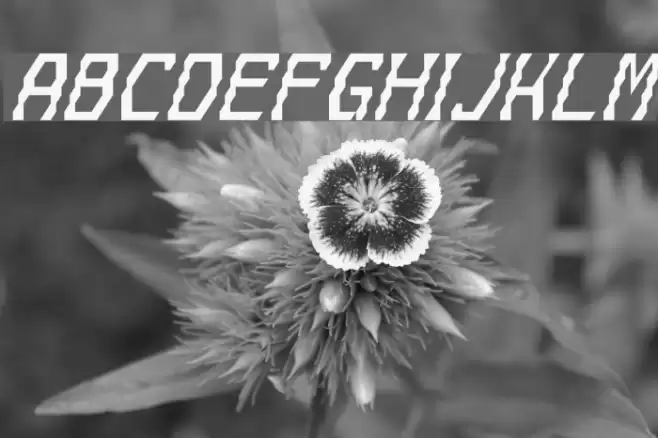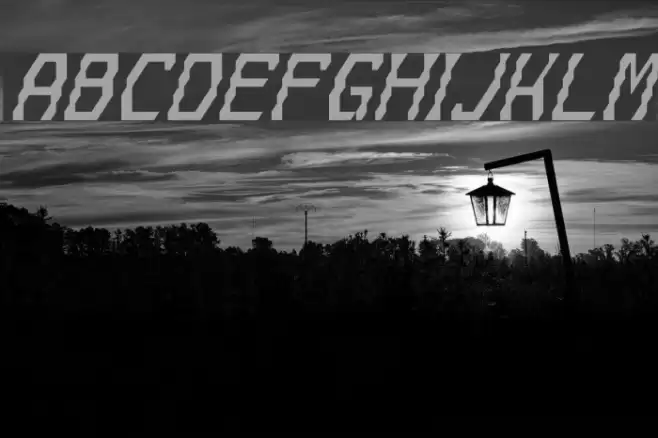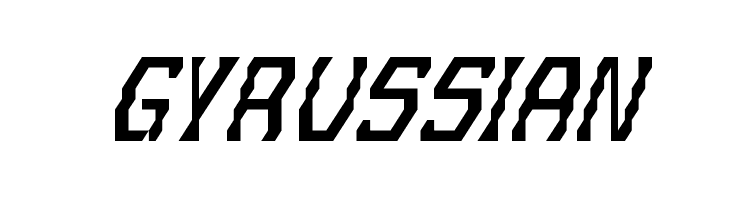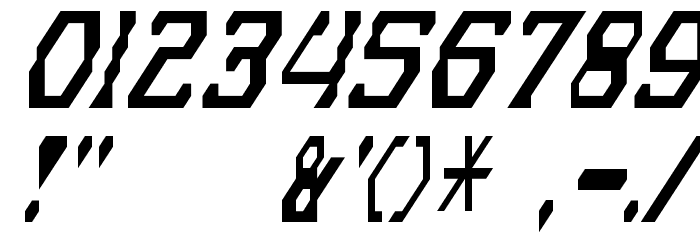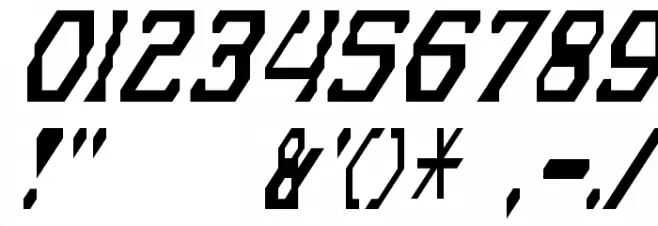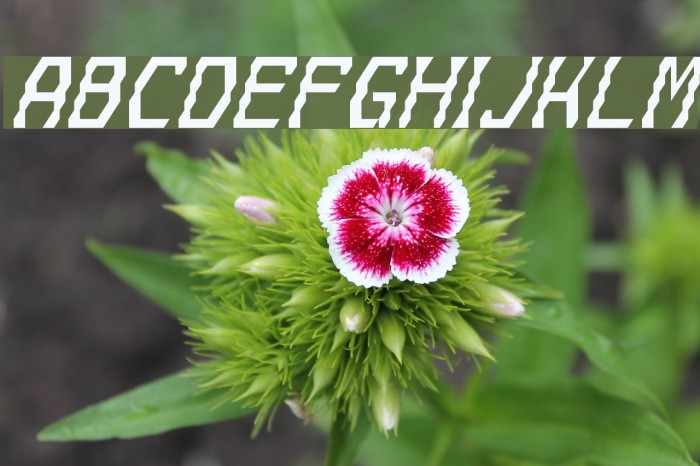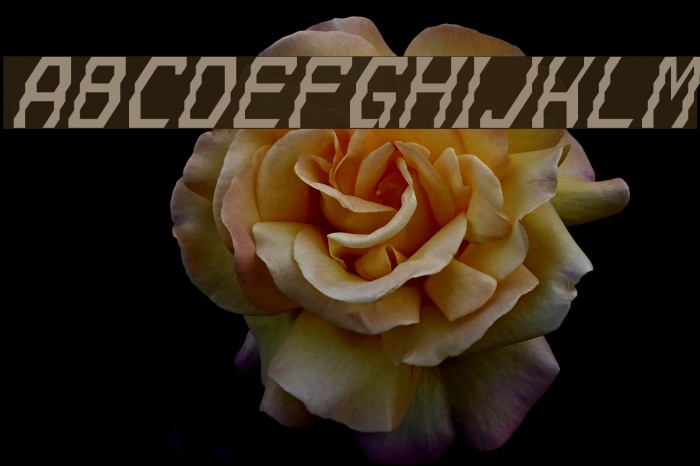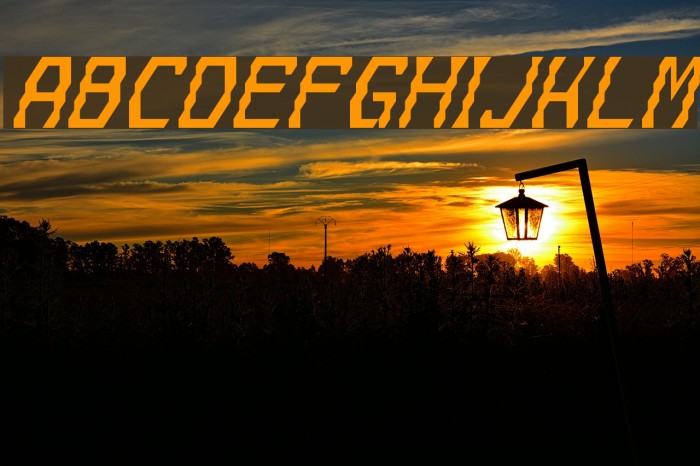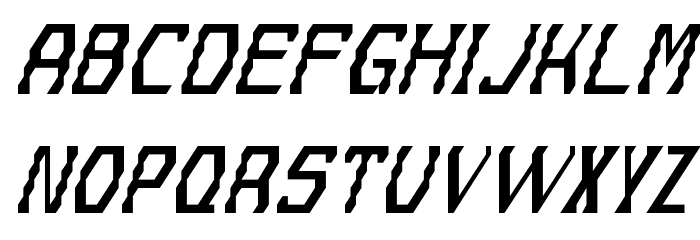
Gyrussian Font
Gyrussian Description
This font features a bold, angular design with a futuristic and dynamic feel. The characters are slanted, giving a sense of motion and speed. The edges are sharply defined, creating a striking and modern appearance. The uppercase and lowercase letters maintain a consistent style, with the lowercase being slightly smaller but equally bold. Numbers and special characters follow the same angular and slanted design, ensuring uniformity across all glyphs. This font is ideal for projects that require a bold statement and a modern aesthetic.
A bold, angular, and slanted font with a futuristic style from Decorative fonts.
- Proposed Projects: Ideal for sci-fi themed designs, video game titles, tech branding, and dynamic posters.